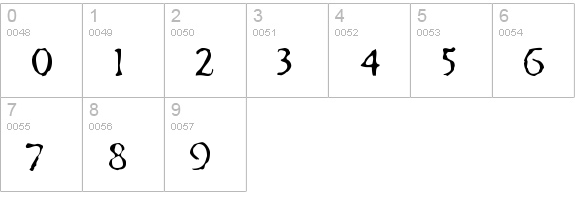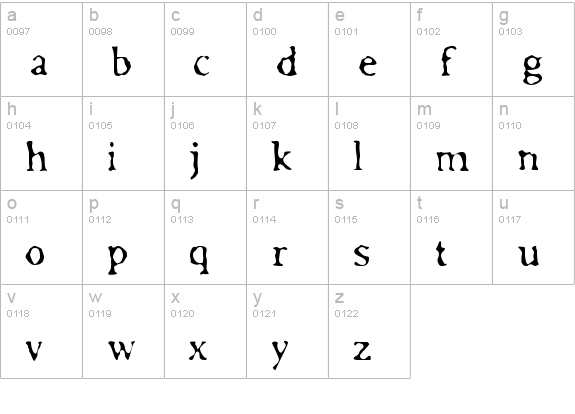
Irregular-Light Font Details
Irregular-Light is a refined, elegant variant in the Irregular typeface family \xE2\x80\x94 well suited to elegant body text, refined sub-headings, and luxury branding.
Introducing Irregular-Light, a captivating and unique font that is sure to add a touch of elegance and creativity to your designs. This font is an absolute must-have for anyone seeking to make a bold statement with their typography. Irregular-Light stands out from the crowd with its beautifully irregular and handcrafted letterforms. Each character is meticulously designed to exude a sense of artistic flair and sophistication. The irregular strokes and delicate curves create a mesmerizing visual rhythm, making this font a true work of art. Whether you're designing a logo, creating eye-catching headlines, or simply adding a touch of personality to your social media posts, Irregular-Light is the perfect choice. Its versatility allows it to seamlessly blend into any design style, from modern and minimalist to vintage and retro. But what makes Irregular-Light even more remarkable is that it is available for free! Yes, you read that right. You can now download this stunning font without any limitations or hidden charges. FontsMarket.com is proud to offer Irregular-Light as a free resource for creatives like you who are passionate about exceptional typography. So, what are you waiting for? Elevate your designs to the next level with Irregular-Light. Download it today from FontsMarket.com and unleash your creativity like never before.